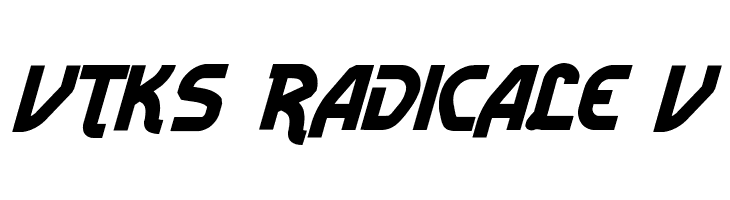
An ornate Blackletter font with intricate, gothic-inspired designs.
A bold, rounded font with a slightly condensed and friendly appearance.
A geometric, angular font with a modern, futuristic design.
A bold, antique-style font with a rugged, hand-crafted appearance.
A bold slab serif font with strong, block-like serifs and a modern yet classic appeal.
A bold, modern font with a geometric and condensed style.
A modern, geometric font with thin lines and a minimalist aesthetic.
A bold, geometric font with a modern, industrial style.